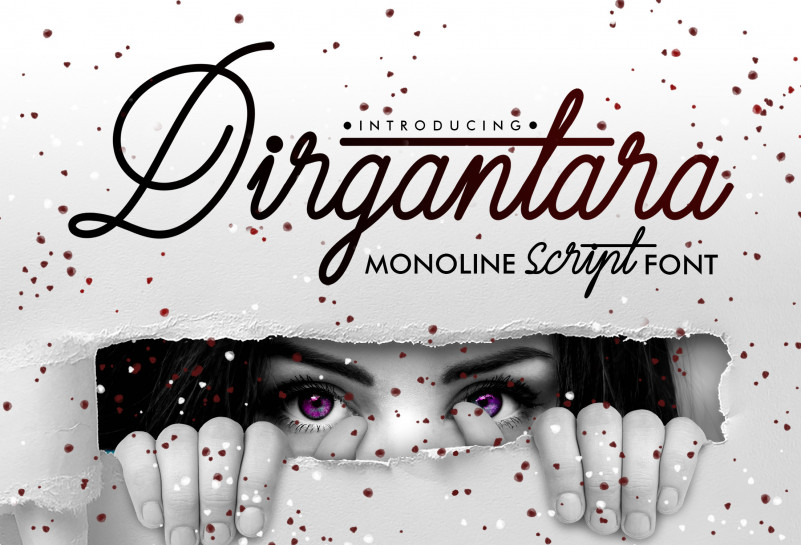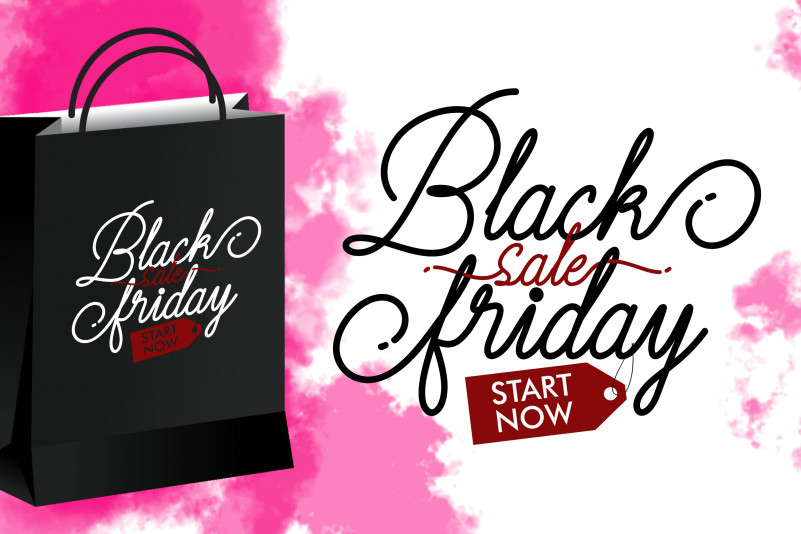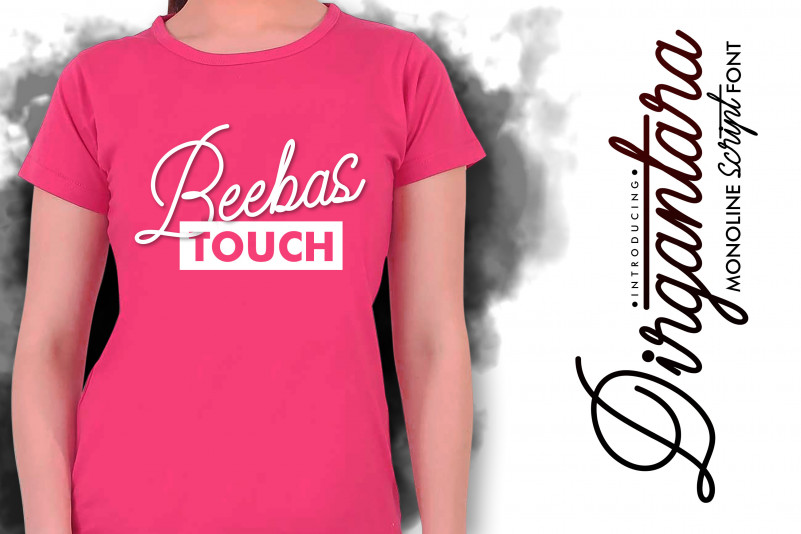
Dirgantara Script Font
Dirgantara
The Dirgantara is a fresh & modern script font. It has a handmade calligraphy style and includes amazing decorative characters.It’s perfect for invitations, greeting cards, branding materials, business cards, quotes, posters, logos and more!!